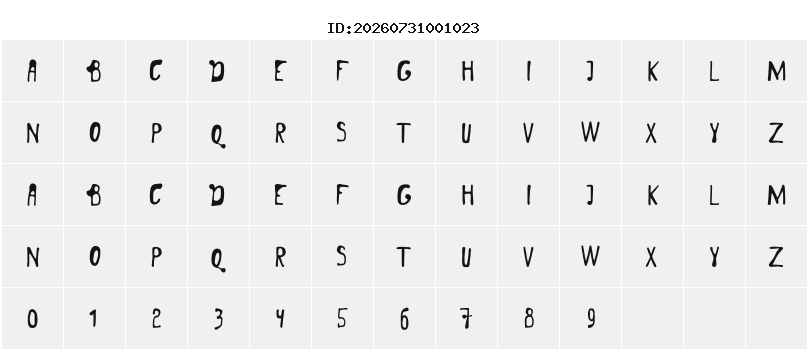
• Font Name: London
• Designer: Olga Kozlova
• Manufacturer: Olga Kozlova, Jovanny Lemonad
About London.otf
London.otf is a modern, elegant sans-serif font designed for ultimate readability and visual harmony. Perfect for branding, headlines, web design, and print materials.